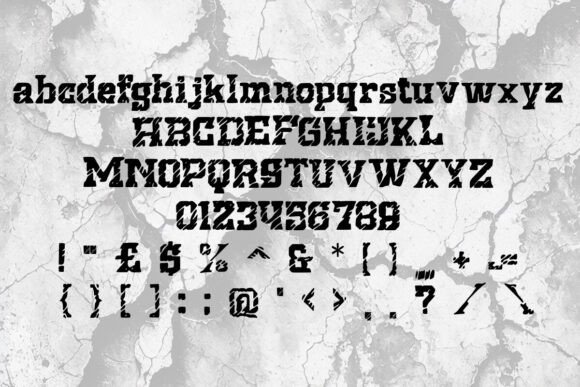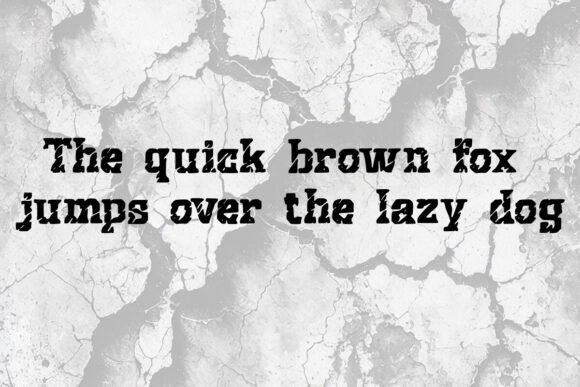
Cracking Up Font: Shatter Expectations with this Bold and Fragmented Typeface
Get ready to shatter expectations with Cracking Up, a bold and fragmented font that’s full of personality! Perfect for making a statement, this font is as quirky as it is striking. In this article, we’ll dive into the world of Cracking Up Font, exploring its unique features, uses, and benefits for designers and crafters.
The Birth of Cracking Up Font
Cracking Up Font is a one-of-a-kind typeface that’s sure to turn heads. Its fragmented and bold design makes it perfect for projects that require a dash of personality and whimsy. Whether you’re a designer, crafter, or DIY enthusiast, this font is sure to inspire creativity and add a touch of playfulness to your work.
Key Features of Cracking Up Font
- Bold and Fragmented Design: Cracking Up Font boasts a bold and fragmented design that’s sure to make a statement.
- Quirky and Striking: This font is as quirky as it is striking, making it perfect for projects that require a dash of personality.
- Highly Versatile: Cracking Up Font can be used for a wide range of projects, from digital designs to handmade crafts.
- Easily Customizable: This font can be easily customized to fit your project’s unique needs.
Uses of Cracking Up Font
Cracking Up Font is perfect for a wide range of projects, including:
- Digital Designs: Use Cracking Up Font to add a touch of personality to your digital designs, such as social media graphics, blog posts, and website headers.
- Handmade Crafts: This font is perfect for handmade crafts, such as scrapbooking, card making, and DIY projects.
- Signage and Posters: Cracking Up Font is ideal for creating eye-catching signage and posters that require a bold and attention-grabbing design.
- Branding and Packaging: Use this font to add a touch of personality to your brand’s packaging and marketing materials.
Benefits of Using Cracking Up Font
So, why choose Cracking Up Font for your next project? Here are just a few benefits of using this unique typeface:
- Adds Personality to Your Design: Cracking Up Font adds a touch of personality and whimsy to your design, making it perfect for projects that require a dash of creativity.
- Grabs Attention: This font is sure to grab attention and make your design stand out from the crowd.
- Highly Versatile: Cracking Up Font can be used for a wide range of projects, making it a valuable addition to your design toolkit.
- Easily Customizable: This font can be easily customized to fit your project’s unique needs, making it perfect for designers and crafters.
Tips for Using Cracking Up Font
Here are a few tips for using Cracking Up Font in your next project:
- Use it Sparingly: While Cracking Up Font is bold and attention-grabbing, it’s best used sparingly to avoid overwhelming your design.
- Experiment with Colors: This font looks great in a variety of colors, so don’t be afraid to experiment and find the perfect hue for your project.
- Pair it with Other Fonts: Cracking Up Font pairs well with other fonts, so try combining it with a more traditional typeface to create visual interest.
Cracking Up Font is a bold and fragmented typeface that’s sure to shatter expectations. With its quirky and striking design, this font is perfect for designers and crafters who want to add a touch of personality to their work. Whether you’re working on a digital design, handmade craft, or signage project, Cracking Up Font is sure to inspire creativity and make your project stand out from the crowd.